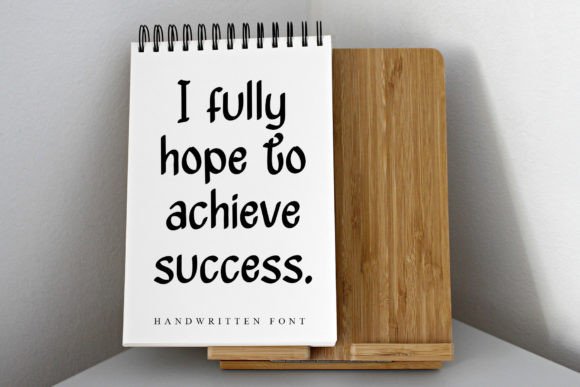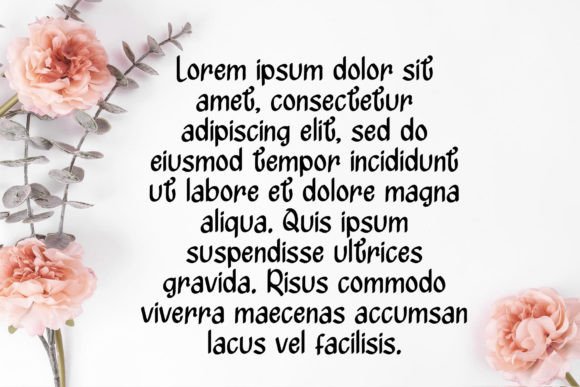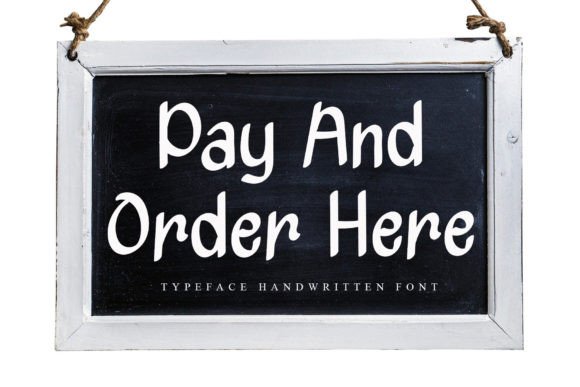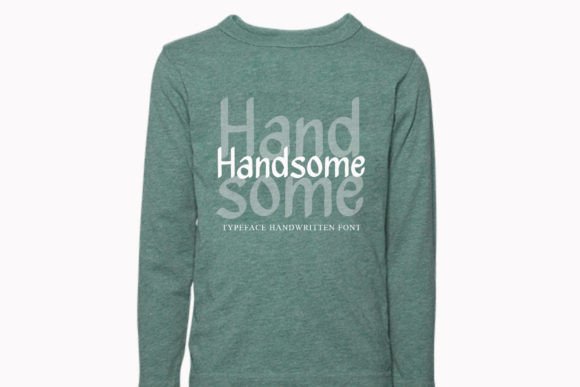
The Clipart Font: A Handwritten Touch for Your Designs
Have you ever been working on a design project, and suddenly, you’re stuck on finding the perfect font? I recall a particularly frustrating experience while designing a wedding invitation for a client. The invitation needed a touch of elegance and sophistication, but every font I tried seemed either too formal or too bland. That’s when I stumbled upon the Clipart Font, and it completely transformed my design.
A Personal Review: What I Love About Clipart Font
The Clipart Font is a unique and elegant font that adds a handwritten touch to any design. Here are some things I love about it:
- ✨ Natural, hand-made touch: The font features a varied baseline, which gives it a natural, hand-made look that’s perfect for designs that require a personal touch.
- 🎨 Versatile: The Clipart Font looks great on wedding invitations, greeting cards, billboards, logos, business cards, and any other design that requires a handwritten touch.
While the Clipart Font is amazing, there are a few small quirks to be aware of:
- 🤔 Learning curve: With so many glyphs and swashes available, it may take some time to get familiar with the font’s features.
- ⚠️ Limited use cases: While the font is versatile, it may not be the best choice for very formal or corporate designs.
The Designer Inspiration Behind Clipart Font
The Clipart Font was inspired by the beauty of handwritten scripts. The designer wanted to create a font that would capture the essence of handwriting, while still being elegant and sophisticated. The result is a font that’s perfect for designs that require a personal touch.
| What is the Clipart Font? | The Clipart Font is a unique and elegant font that adds a handwritten touch to any design. |